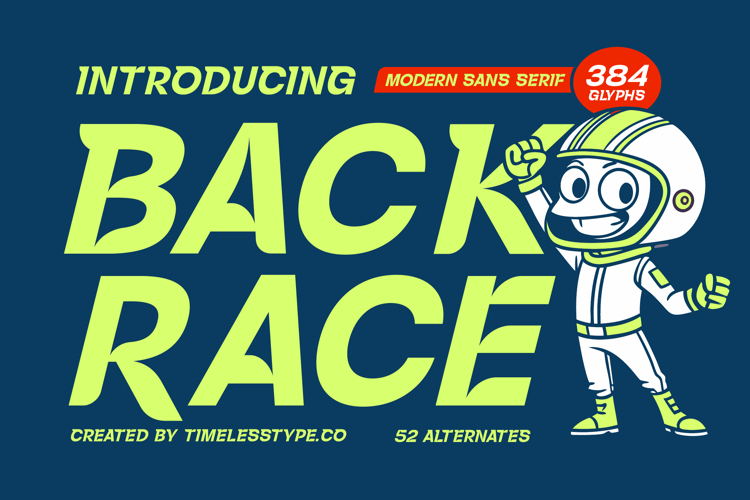
Back Race Italic - Modern Sans Serif Font
Unleash a wave of kinetic energy and unmistakable style with Back Race Italic - Modern Sans Serif Font. This exceptional typeface blends the timeless appeal of a robust sans serif with a dynamic italic slant, creating a truly bold and attention-grabbing aesthetic. Its clean lines and confident posture are perfectly calibrated to deliver instant visual impact, making it an ideal choice for projects demanding both modernity and a touch of vintage racing spirit.
Achieve unparalleled global reach and design flexibility with this remarkable font. With its extensive multilingual support, Back Race Italic - Modern Sans Serif Font adapts seamlessly across global markets, making it incredibly versatile for international projects. Its expansive character set, including 52 alternates and 384 glyphs, empowers designers to craft unique and expressive typographic compositions that resonate universally.
Back Race Italic - Modern Sans Serif Font is perfectly engineered for maximum impact across a multitude of creative ventures. It excels in sports branding, automotive design, energetic event promotions, and youth-oriented marketing. This font is also an outstanding selection for packaging, dynamic headlines, logo design, and any application where a powerful, contemporary, and playful visual statement is paramount.